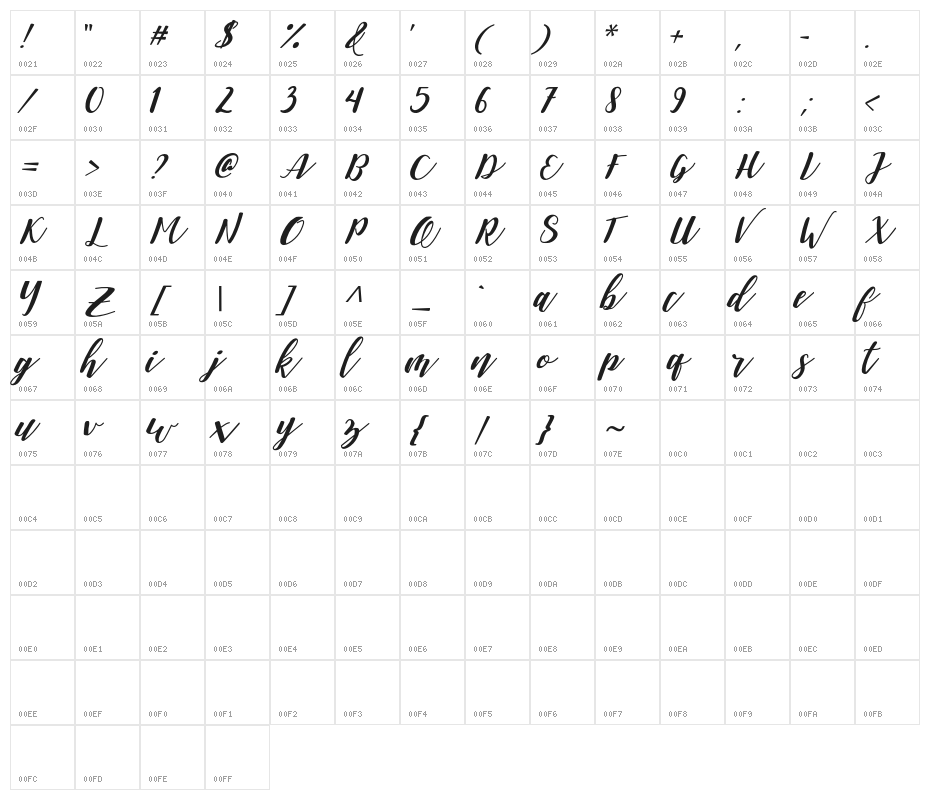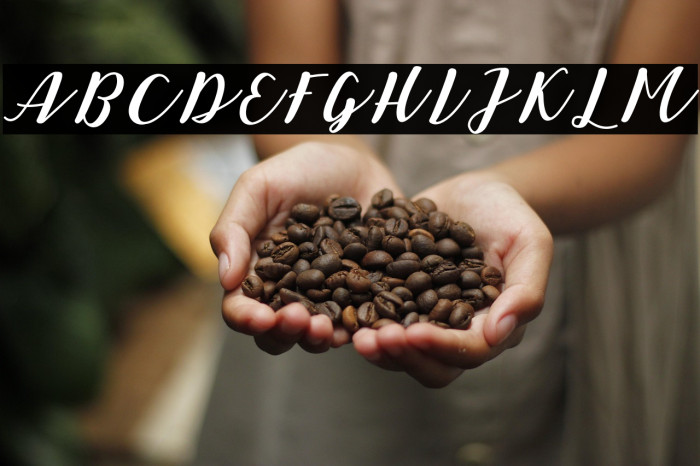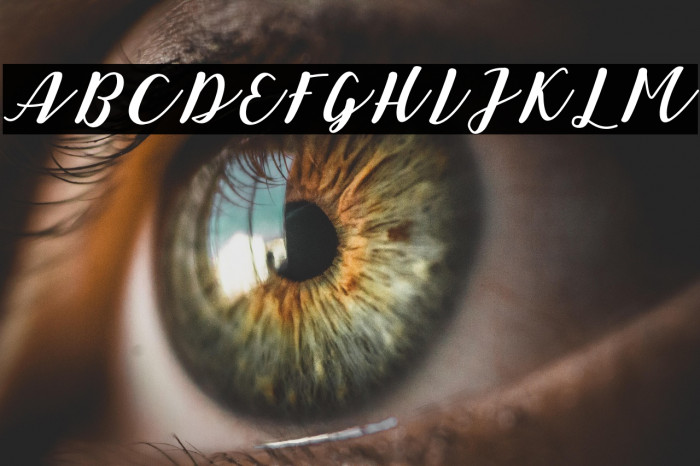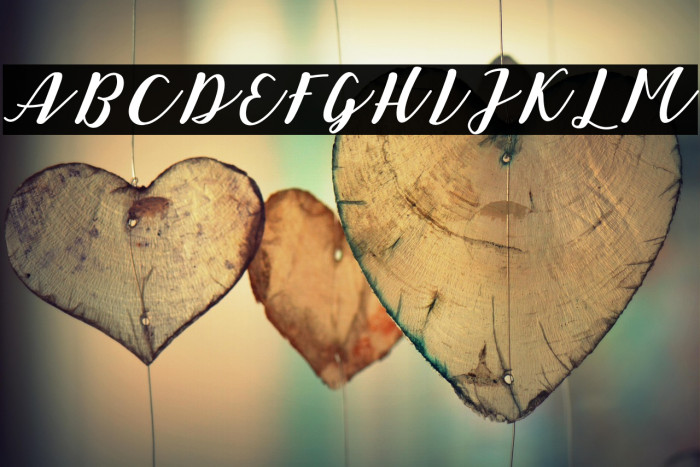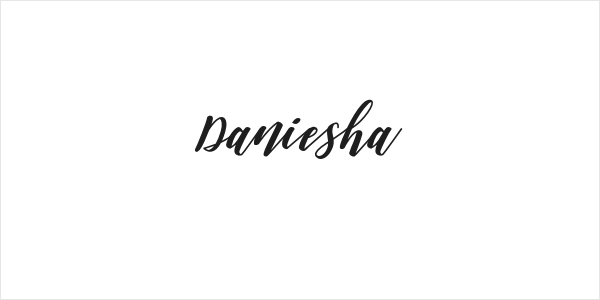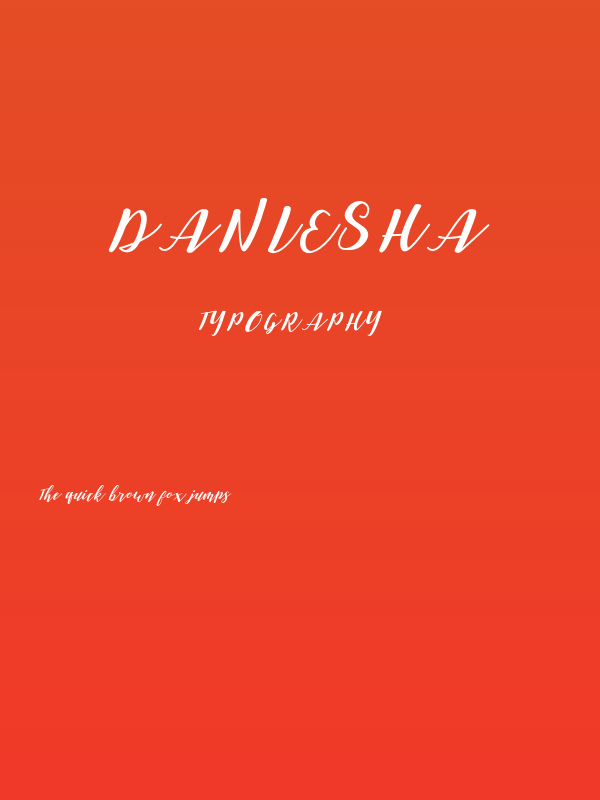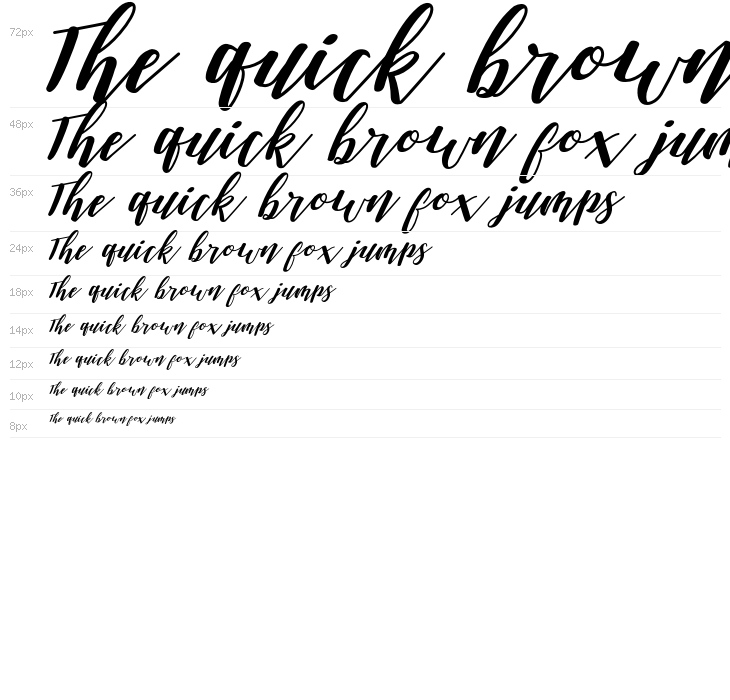
Daniesha Font
Daniesha Description
This font exudes a dynamic and elegant script style, characterized by its fluid, cursive strokes that mimic the flow of handwriting. The uppercase letters are bold and slightly slanted, giving a sense of movement and grace. The lowercase letters maintain a consistent style, with smooth curves and a harmonious balance between thick and thin strokes. Numbers and special characters are crafted with the same attention to detail, ensuring a cohesive look across all elements. The overall appearance is both sophisticated and approachable, making it suitable for a variety of design applications.
| Overall Style | Elegant, Modern |
| Proposed Projects | Ideal for wedding invitations, branding projects, greeting cards, and elegant packaging designs. |